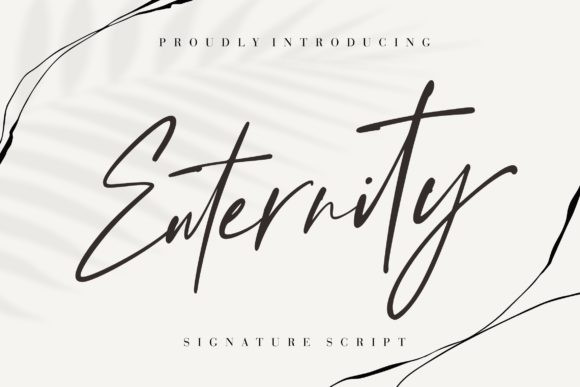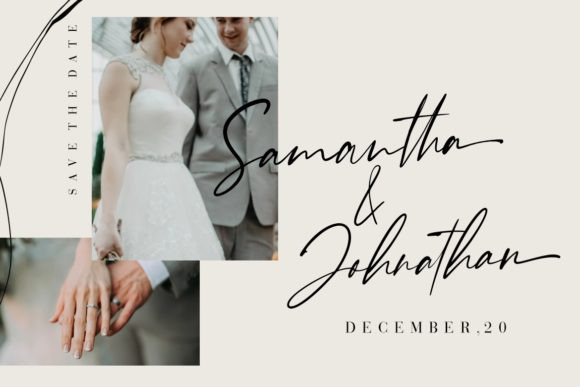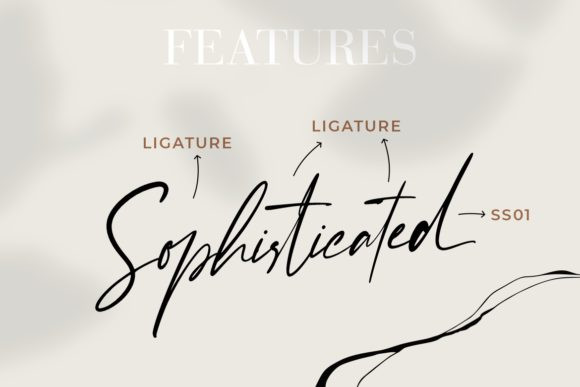
Enternity Font
Enternity is a luxury romantic calligraphy font. This font is PUA encoded which means you can access all of the glyphs and swashes with ease! Enternity has a clean, thin and smooth vibe and it will be a hit for any design that you want to add it to.